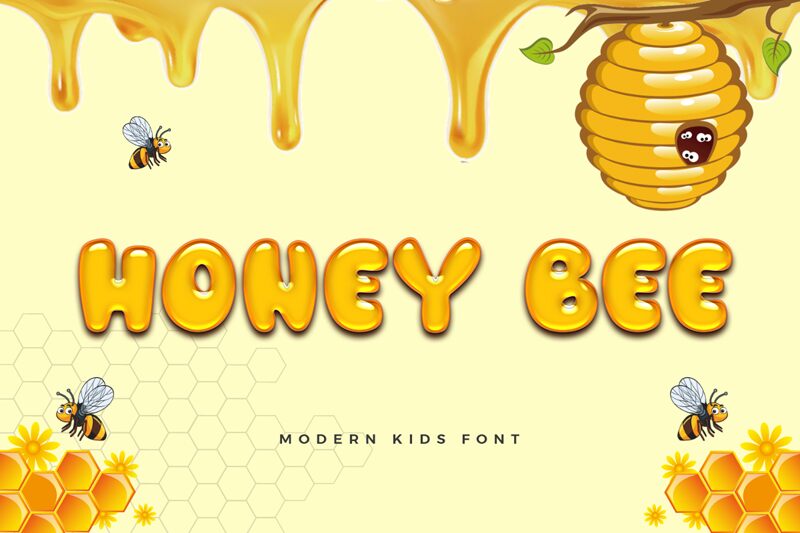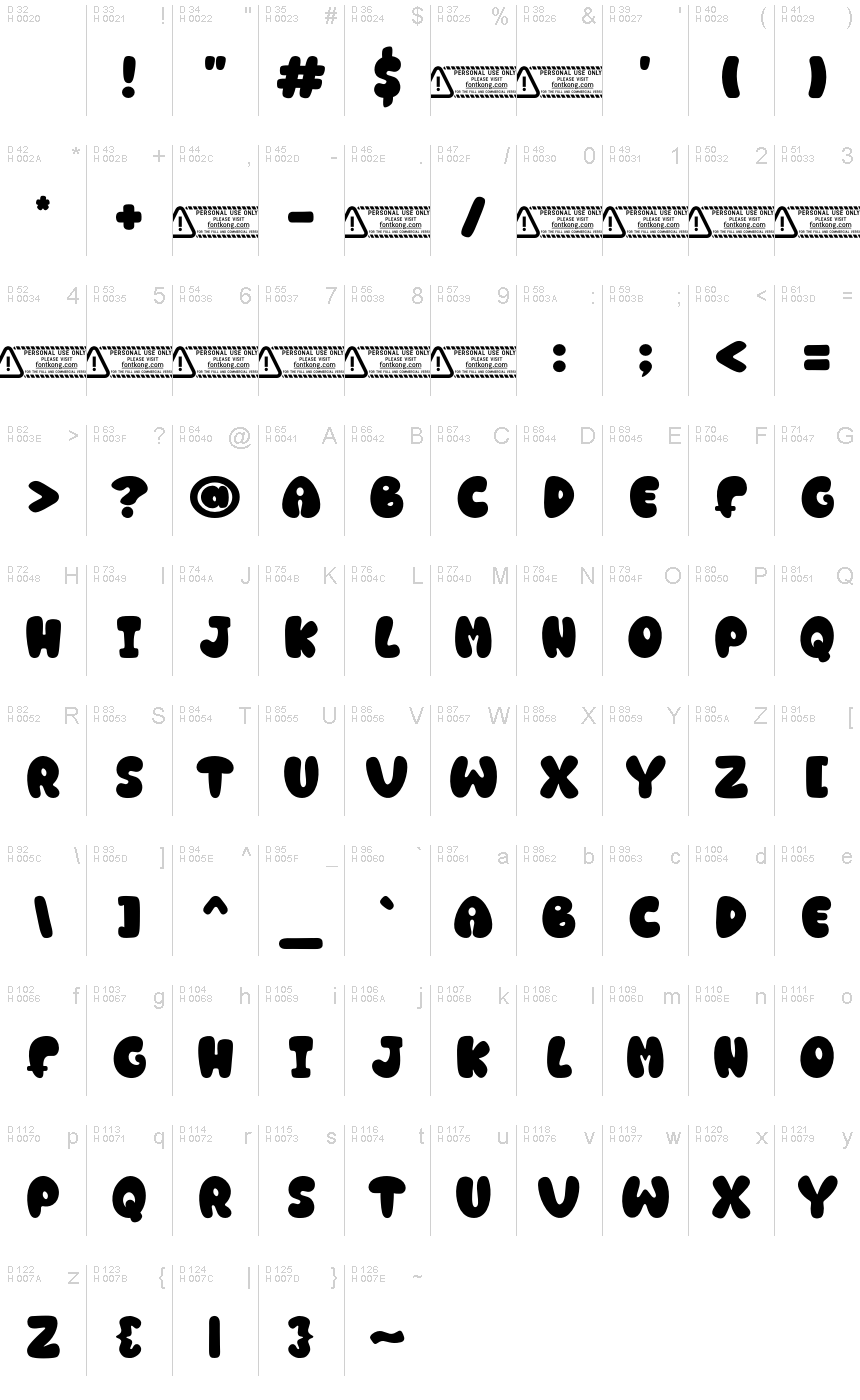
Honey Bee font, designed by Kong Font, is a vibrant display type that exudes playful charm and whimsy. Its cartoon style features exaggerated curves and lively shapes, creating an inviting and friendly atmosphere. The bold character of this font captures attention effortlessly, making it a standout choice for various design projects.
Visually appealing with its striking presence, Honey Bee is perfect for children's books, playful branding, or any context where joy and creativity are paramount. Its unique flair can bring life to posters, invitations, and digital media alike. With its engaging aesthetic, Honey Bee effortlessly balances fun with functionality, ensuring messages resonate with enthusiasm and warmth.